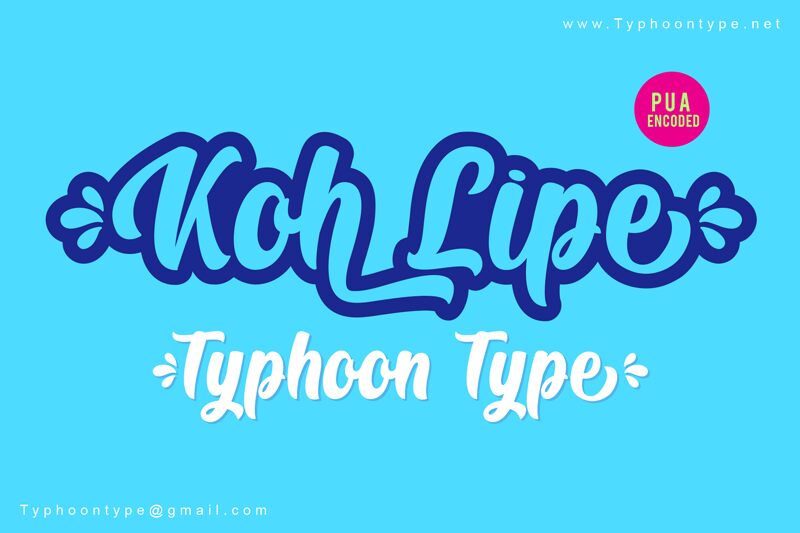
Koh Lipe font is a brush typeface designed by Suthi Srisopha of Typhoon Type.
Type ( before word to get beginning splash and Type ) after word to get the ending splash.
Example : (Koh Lipe)